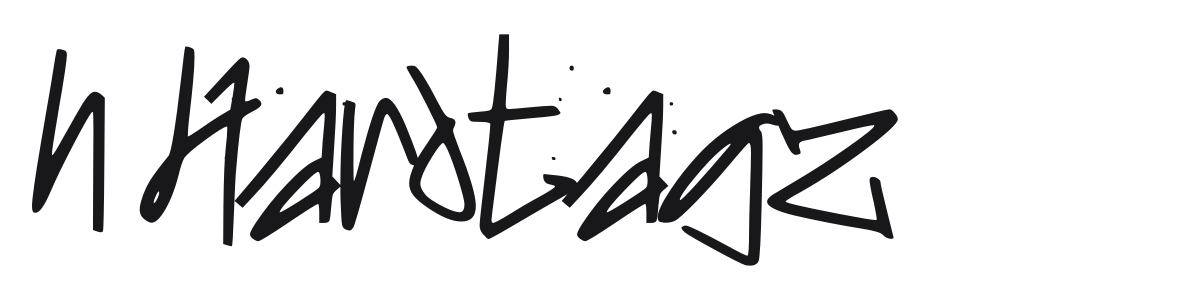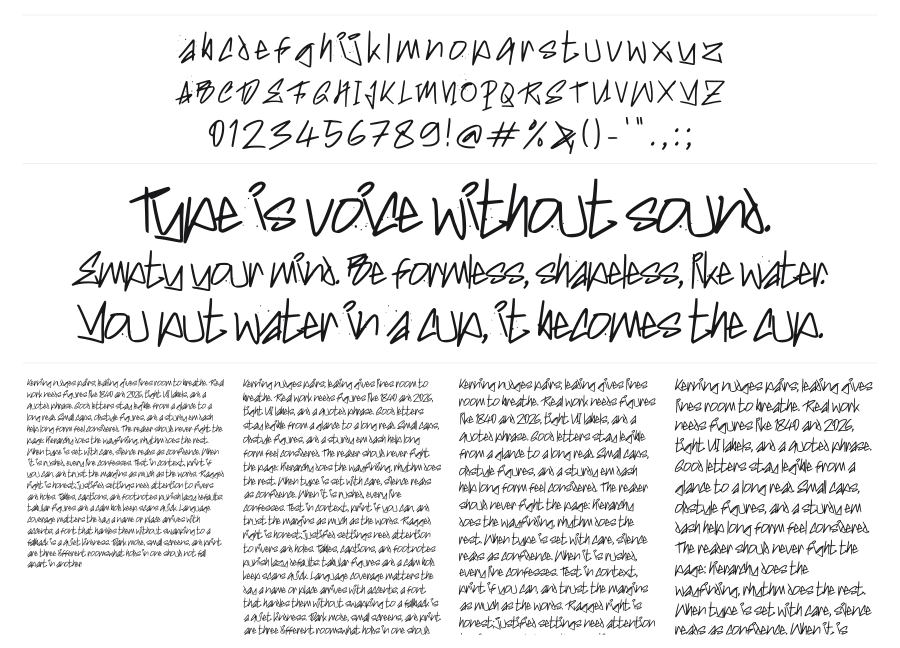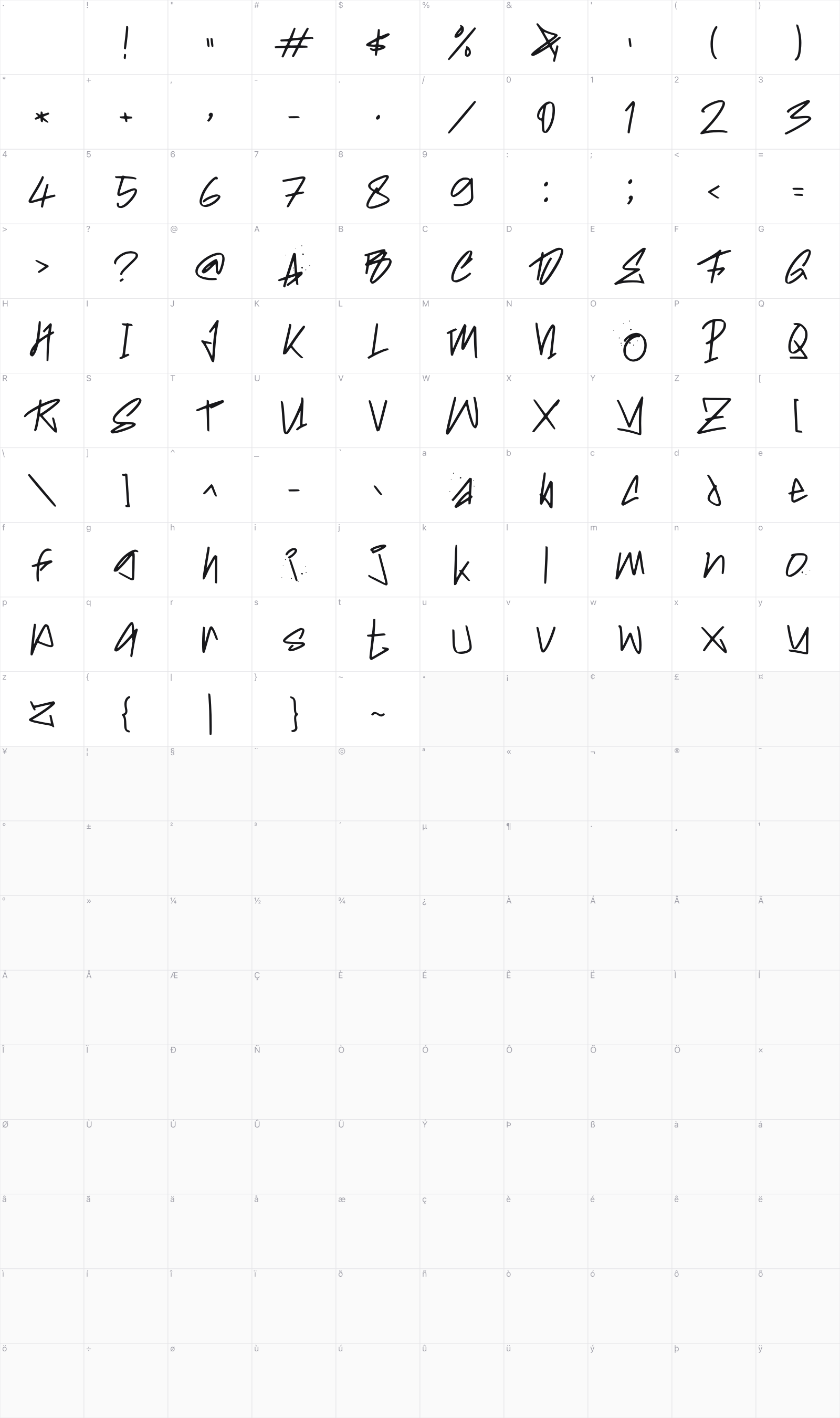
h Hardtagz
HardtagZ is a graffiti tag-style script drawn to replicate the raw energy of street tagging. Thin, angular strokes sweep and overlap in a fast, semi-illegible flow accented with ink splatter details. It works best at large sizes where the chaotic energy reads clearly.